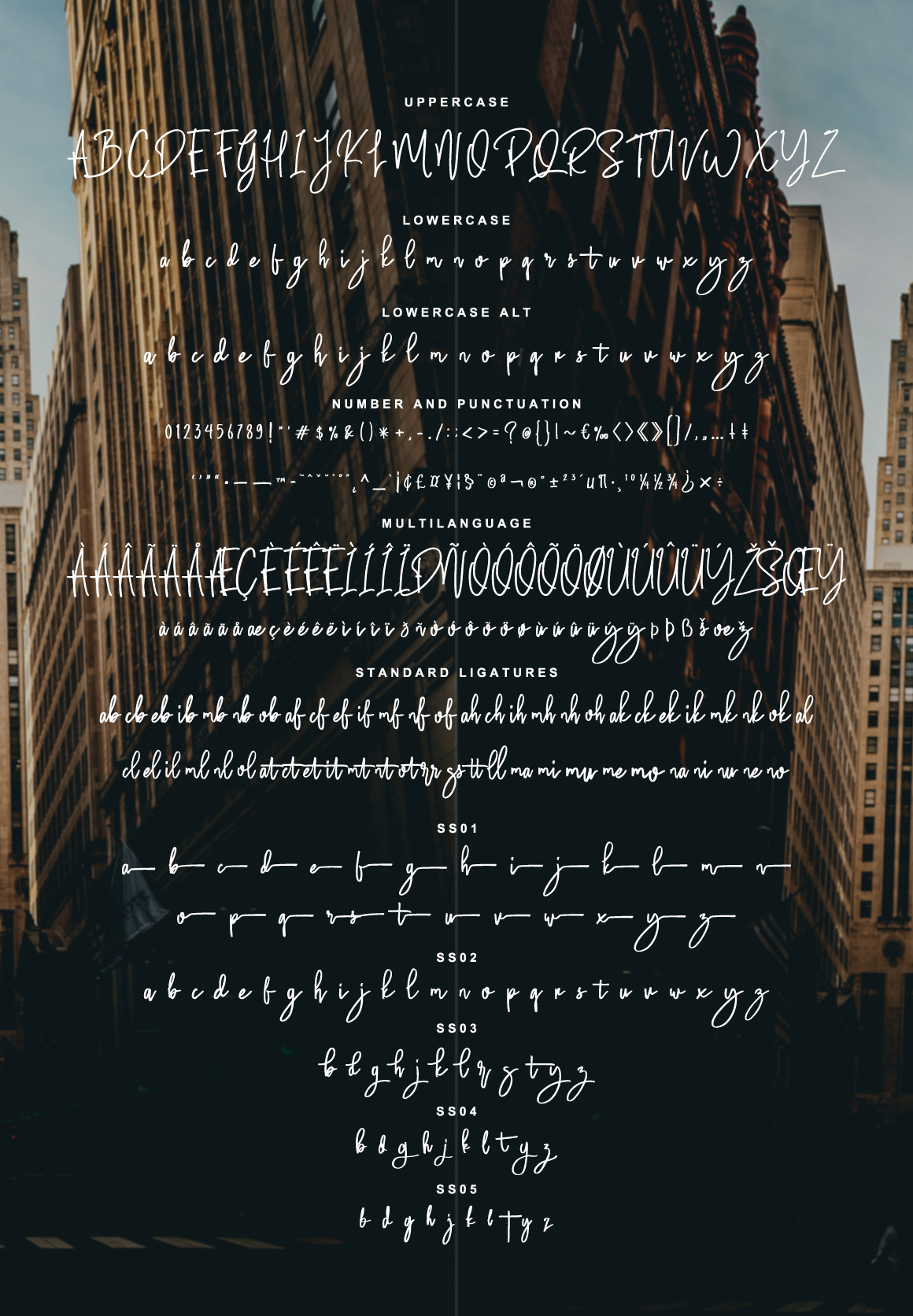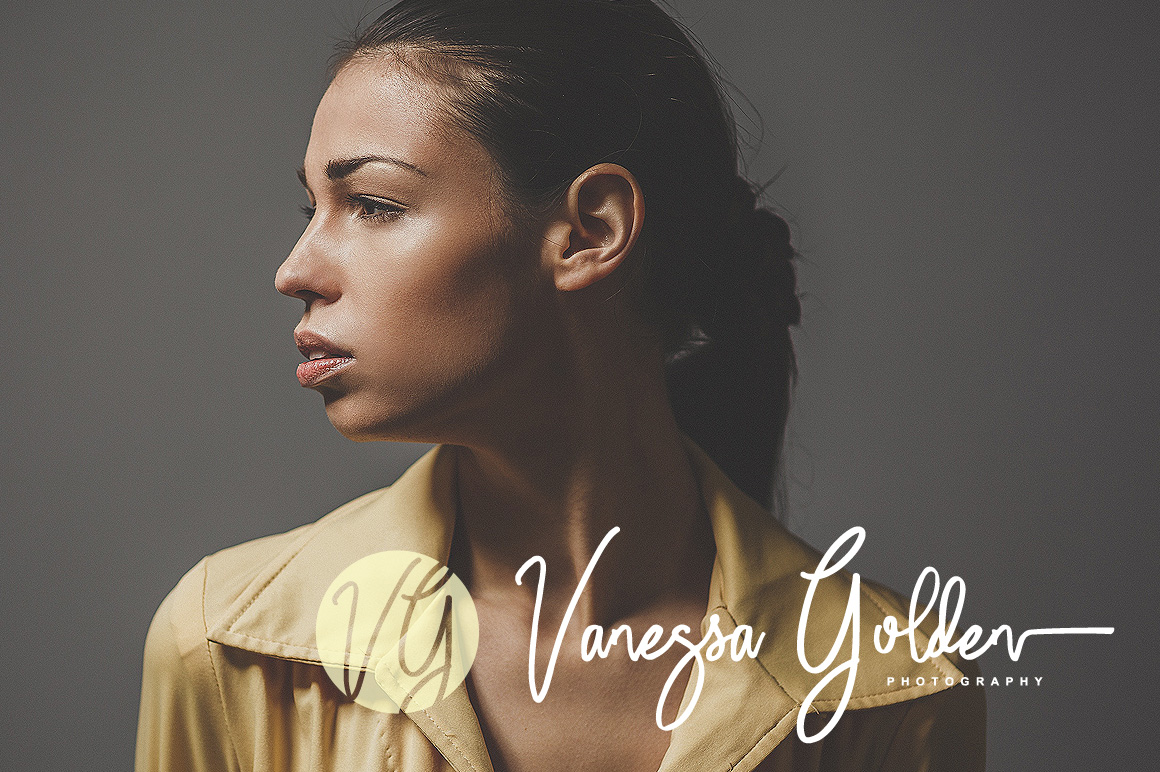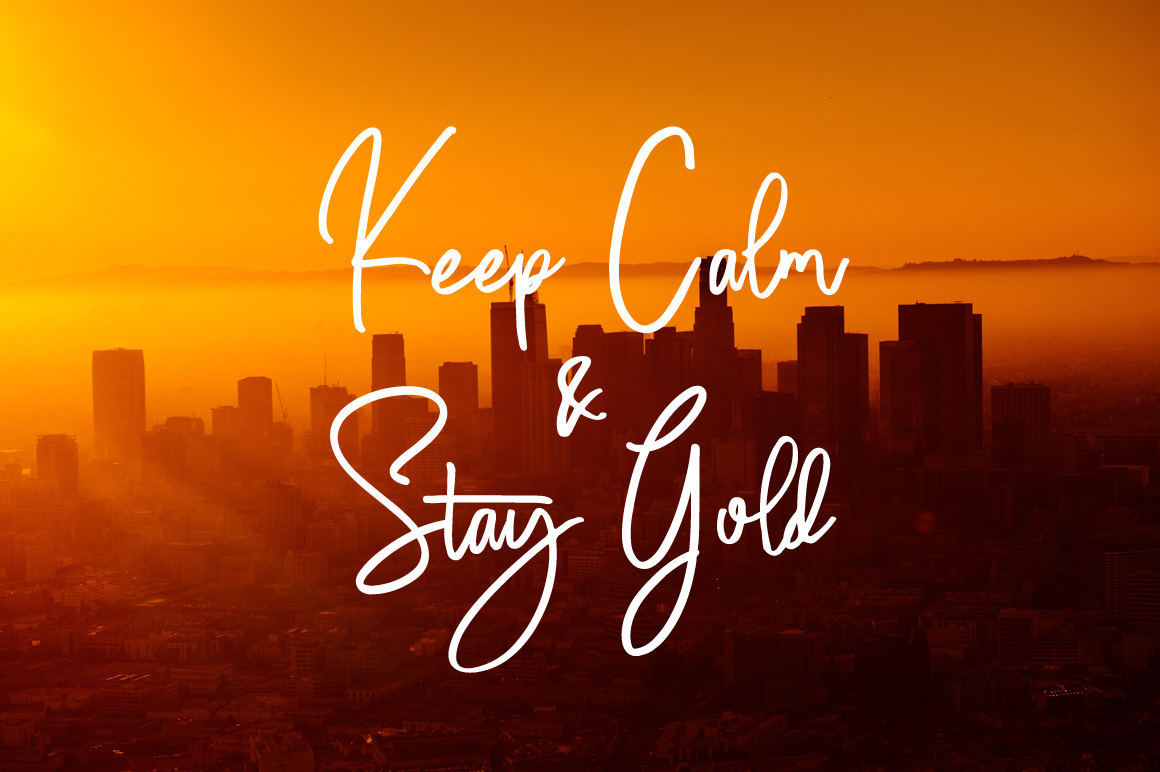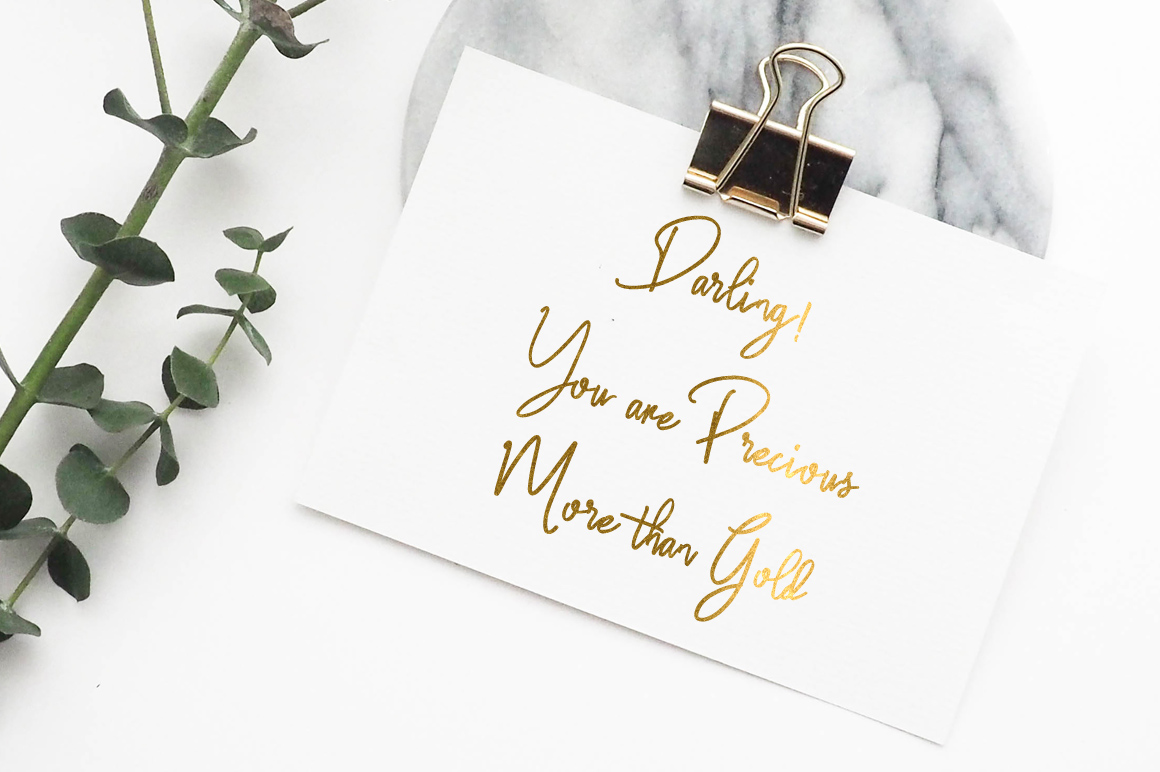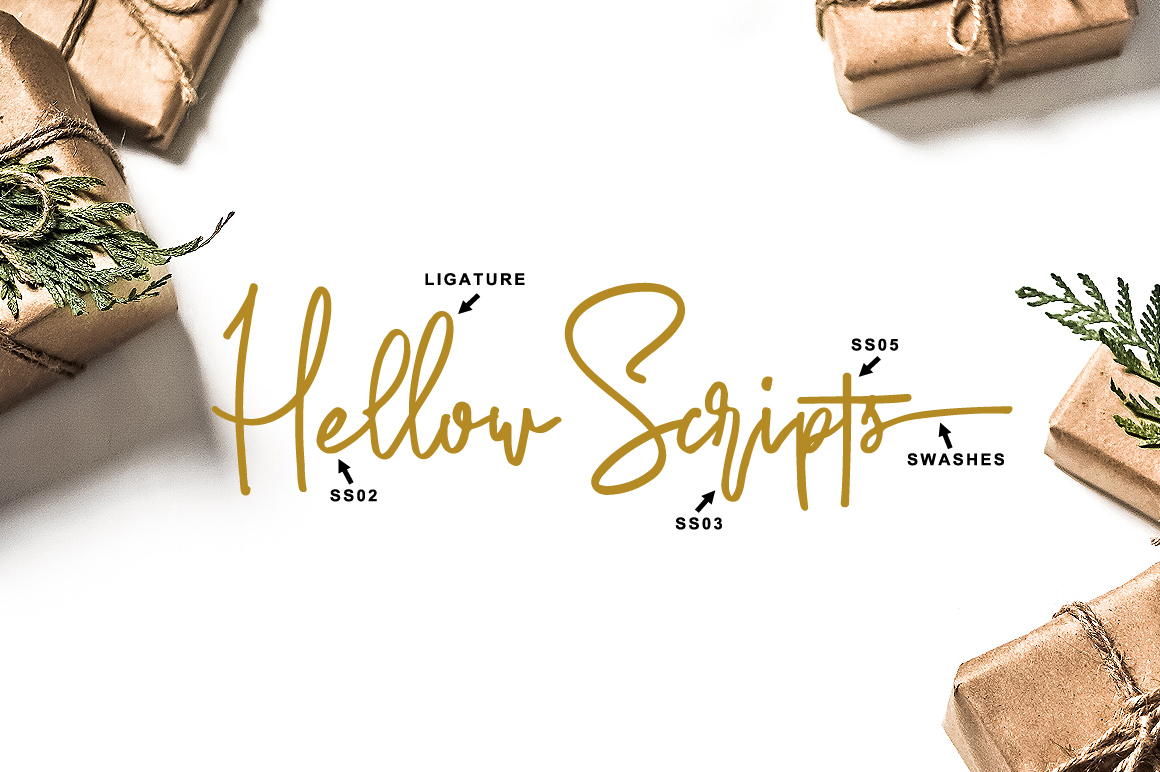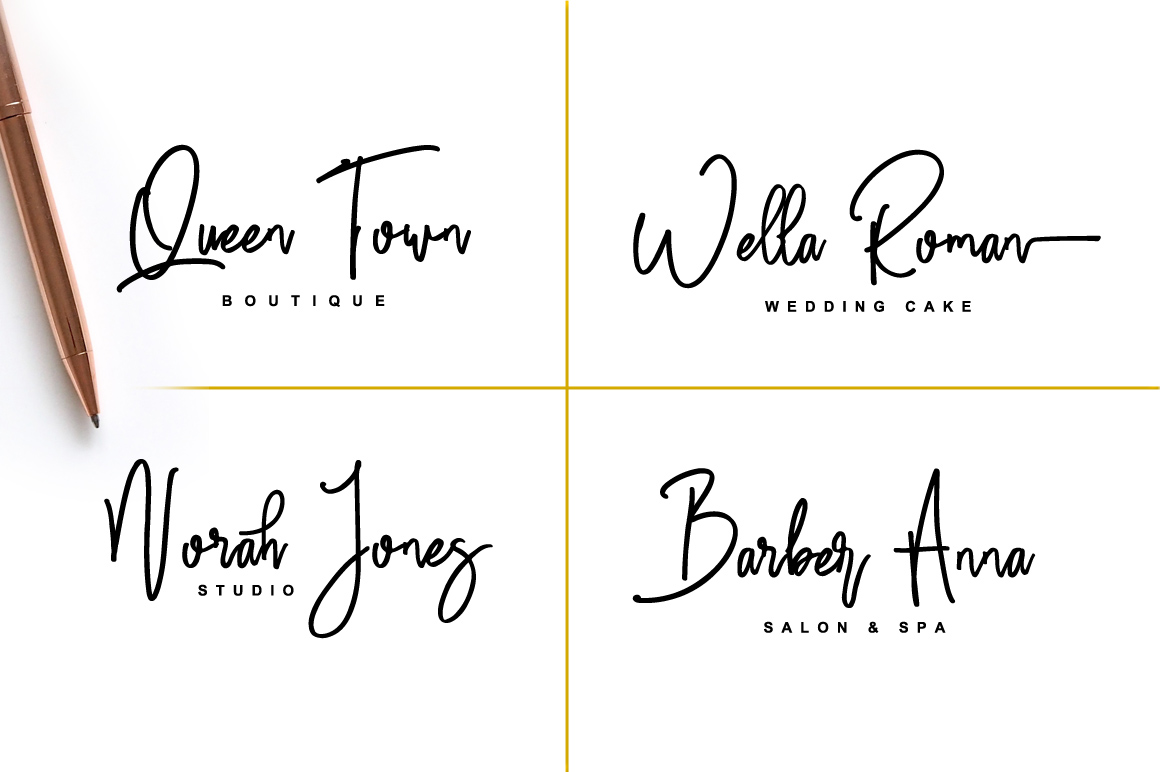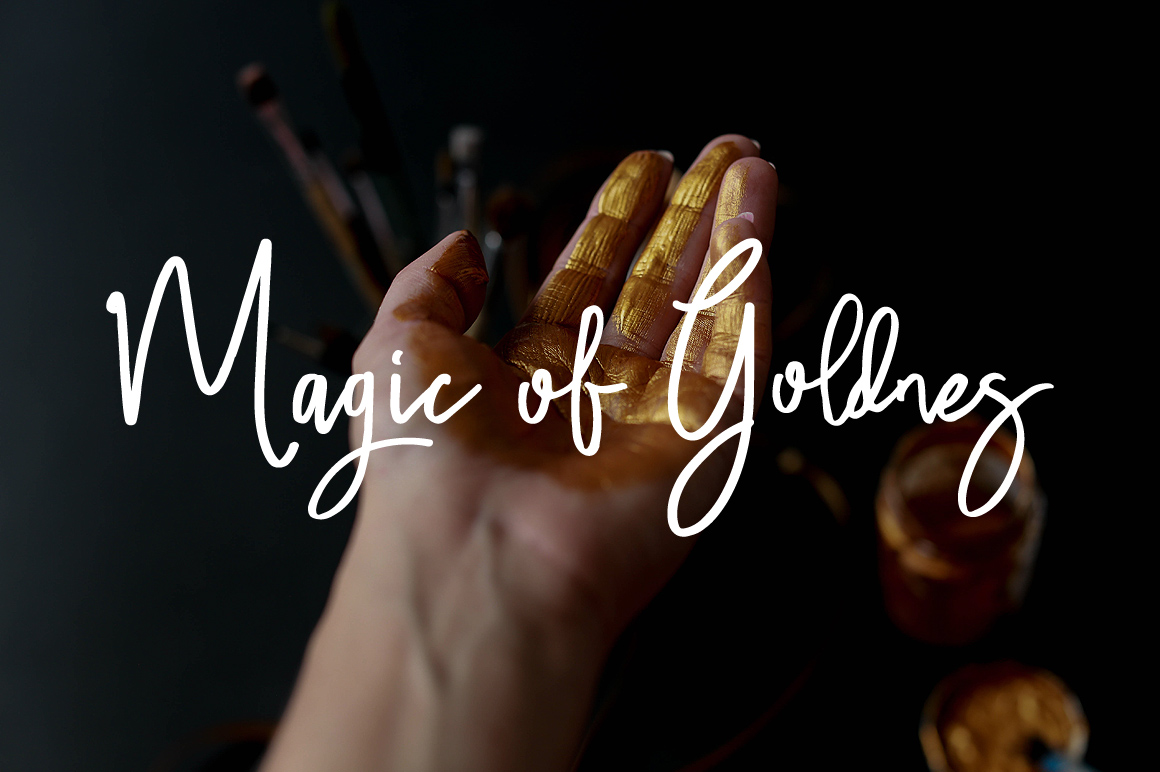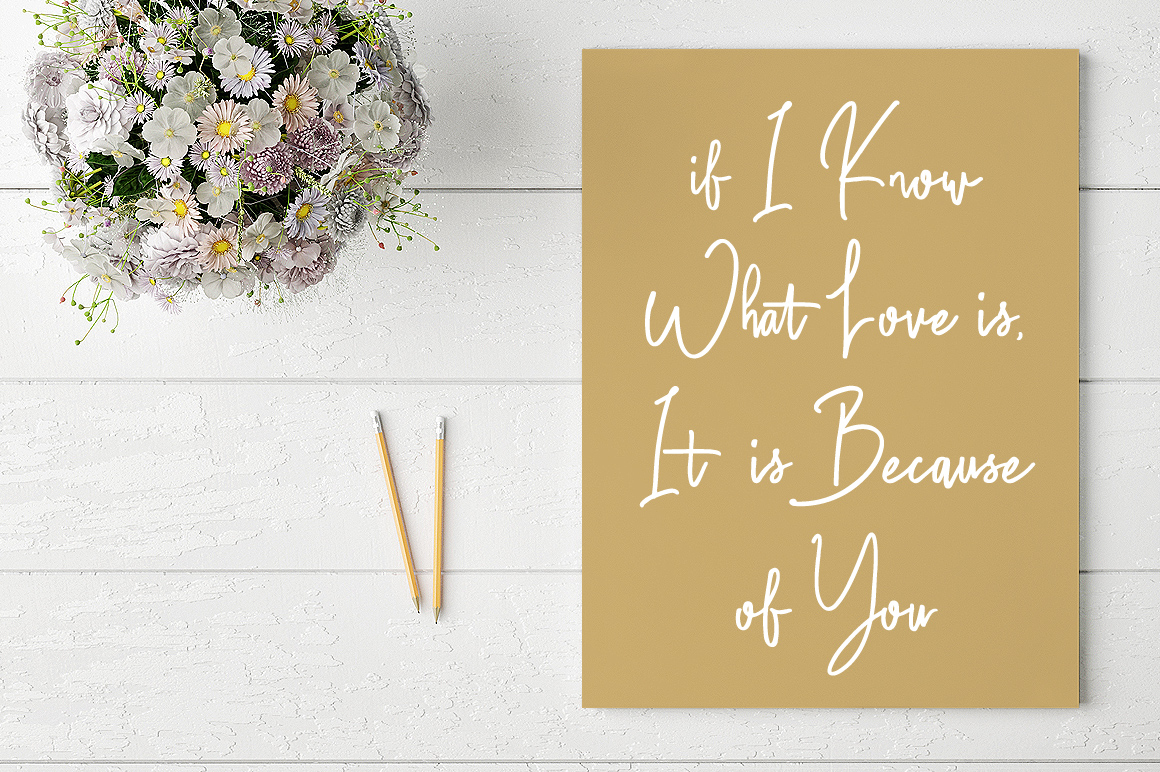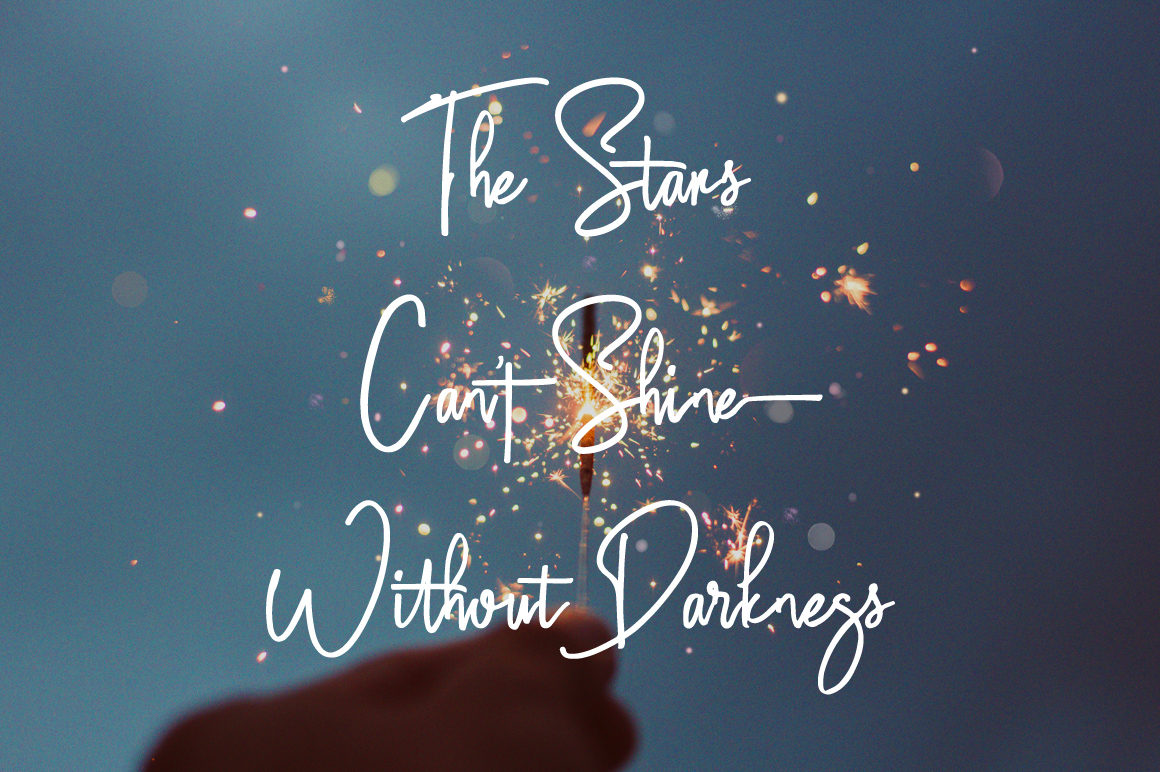
Salute Riches Font
About Salute Riches Font
Salute Riches is a stunning handwritten signature font, perfect for giving your designs an elegant and genuine feel. This font looks stunning in editorials and fashion spreads, but can give any type of project a warm appeal.